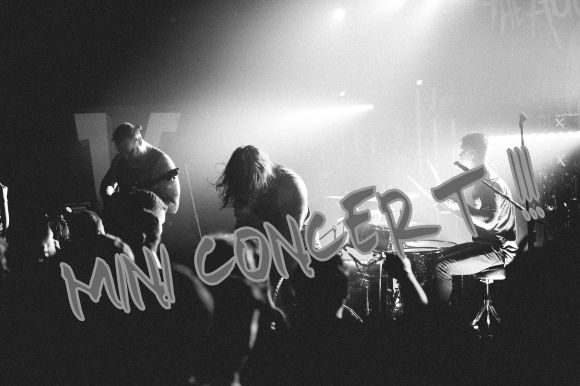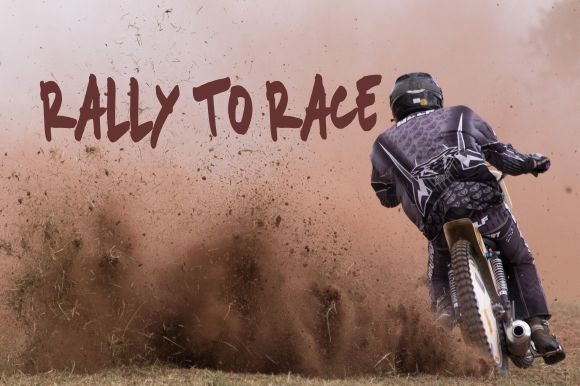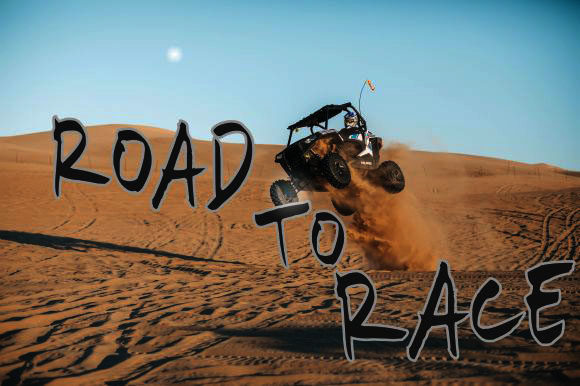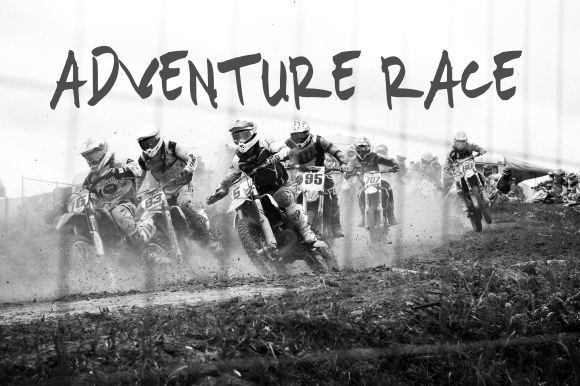
Introduction to Sambalado Font
Have you ever stared at a blank page, waiting for the perfect idea to strike? That’s exactly where I was when I first laid eyes on the Sambalado Font. Its sleek design instantly sparked my creativity, and I knew I had to share it with the world.
As designers, we’re always on the lookout for that one special element to elevate our projects. Whether it’s a magazine cover, a poster, or even a social media graphic, the right font can make all the difference. And that’s exactly why the Sambalado Font is a game-changer. With its high-quality design and transparent background, this font is a design resource waiting to be unleashed.
Key Features of Sambalado Font
- High-quality design for creative projects: The Sambalado Font is a premium design resource that offers a unique and stylish touch to any creative project.
- Transparent background: The Sambalado Font features a transparent background, allowing for easy layering and customization in design projects.
- Resolution: The Sambalado Font is designed at a high resolution of 300 DPI, ensuring crisp and clear text in any design project.
- Unique script style: The Sambalado Font features a unique script style that adds a touch of elegance and sophistication to any design project.
Honest Review: Sambalado Font
As a designer, I’m always on the lookout for high-quality fonts that can elevate my creative projects. I recently came across the Sambalado Font, and I must say, it’s been a game-changer for me.
What works well: ✨ The Sambalado Font is incredibly versatile and can be used for a wide range of design projects, from logos to typography-heavy graphics. The font is also free to download, making it an excellent design resource for designers on a budget. Additionally, the font features a transparent background, allowing for seamless integration into any design.
- Versatile and suitable for various design projects
What doesn’t work well: ⚠️ While the Sambalado Font is an excellent choice for many design projects, it may not be the best option for projects that require a more modern or sleek aesthetic. The font’s design is more on the traditional side, which may not appeal to designers who prefer a more contemporary look.
Overall impression: I’m thoroughly impressed with the Sambalado Font. Its high-quality design, versatility, and free download make it an excellent addition to any designer’s toolkit. While it may not be the best choice for every project, it’s definitely a great option to consider for designers who need a reliable and professional font.
Tips for Getting the Most Out of Sambalado Font
To get the most out of the Sambalado Font, experiment with different font sizes, colors, and combinations. Use it to create eye-catching headlines, or as a subtle background element. With its high quality and transparent background, the possibilities are endless.
Common Use Cases for Sambalado Font
The Sambalado Font is perfect for a variety of design projects, including brochures, business cards, and social media graphics. Its versatility and high quality make it a valuable design resource for any creative project.
What is the recommended font size and style for optimal readability with the Sambalado Font?
The Sambalado Font is designed to be highly legible at various font sizes. For optimal readability, we recommend using font sizes between 12 and 24 points. You can also experiment with different font styles, such as bold, italic, or condensed, to achieve the desired look for your creative project.